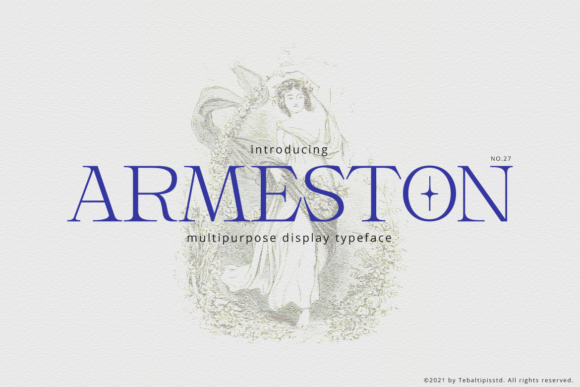
Introducing Armeston Font: Elevate Your Designs with Elegance and Style
Are you tired of using the same old fonts in your designs? Look no further than Armeston Font, an elegant and stylish serif font that’s sure to take your projects to the next level. With its PUA encoding, this font offers easy access to a wide range of glyphs and swashes, making it a versatile and valuable addition to any designer’s toolkit.
The Characteristics of Armeston Font
Armeston Font is a serif font that exudes sophistication and refinement. Its elegant lines and curves make it perfect for designs that require a touch of luxury and glamour. The font’s classic style ensures that it will remain timeless, even as design trends come and go.
One of the standout features of Armeston Font is its PUA (Private Use Area) encoding. This means that the font includes a wide range of glyphs and swashes that can be easily accessed and used in your designs. Whether you’re creating a logo, branding materials, or marketing collateral, Armeston Font provides the flexibility and creativity you need to produce stunning results.
Benefits of Using Armeston Font
So why choose Armeston Font for your design projects? Here are just a few benefits you can expect:
- Elegance and sophistication: Armeston Font adds a touch of luxury and refinement to any design, making it perfect for high-end brands and projects.
- Versatility: With its PUA encoding and wide range of glyphs and swashes, Armeston Font can be used in a variety of design applications, from logos and branding to marketing materials and more.
- Easy to use: Armeston Font is designed to be user-friendly, making it easy to access and use the glyphs and swashes you need to create stunning designs.
- Timeless style: The classic style of Armeston Font ensures that your designs will remain timeless, even as design trends evolve.
How to Use Armeston Font in Your Designs
Using Armeston Font in your designs is easy. Here are a few tips to get you started:
- Pair it with other fonts: Armeston Font works well with a variety of other fonts, so don’t be afraid to experiment with different pairings to find the one that works best for your design.
- Experiment with glyphs and swashes: With its PUA encoding, Armeston Font offers a wide range of glyphs and swashes to choose from. Take some time to explore these and find the ones that work best for your design.
- Use it for headlines and titles: Armeston Font is perfect for headlines and titles, where its elegant lines and curves can really shine.
- Add it to your branding materials: If you’re looking to create a cohesive brand identity, consider adding Armeston Font to your branding materials, such as your logo, business cards, and website.
Who Can Benefit from Armeston Font?
Armeston Font is a versatile font that can be used by a wide range of designers and crafters, including:
- Graphic designers: Whether you’re creating logos, branding materials, or marketing collateral, Armeston Font is a great addition to your design toolkit.
- Web designers: Armeston Font can be used to create stunning website headers, titles, and other design elements.
- Crafters: If you’re a crafter who loves to create handmade cards, scrapbook pages, and other paper crafts, Armeston Font is a great choice for adding a touch of elegance and sophistication to your projects.
- Branding experts: If you’re helping clients develop their brand identity, Armeston Font is a great font to consider for logos, business cards, and other branding materials.
In conclusion, Armeston Font is an elegant and stylish serif font that’s perfect for designers and crafters who want to add a touch of luxury and refinement to their projects. With its PUA encoding and wide range of glyphs and swashes, this font offers the flexibility and creativity you need to produce stunning results. So why wait? Add Armeston Font to your design toolkit today and see the difference it can make!